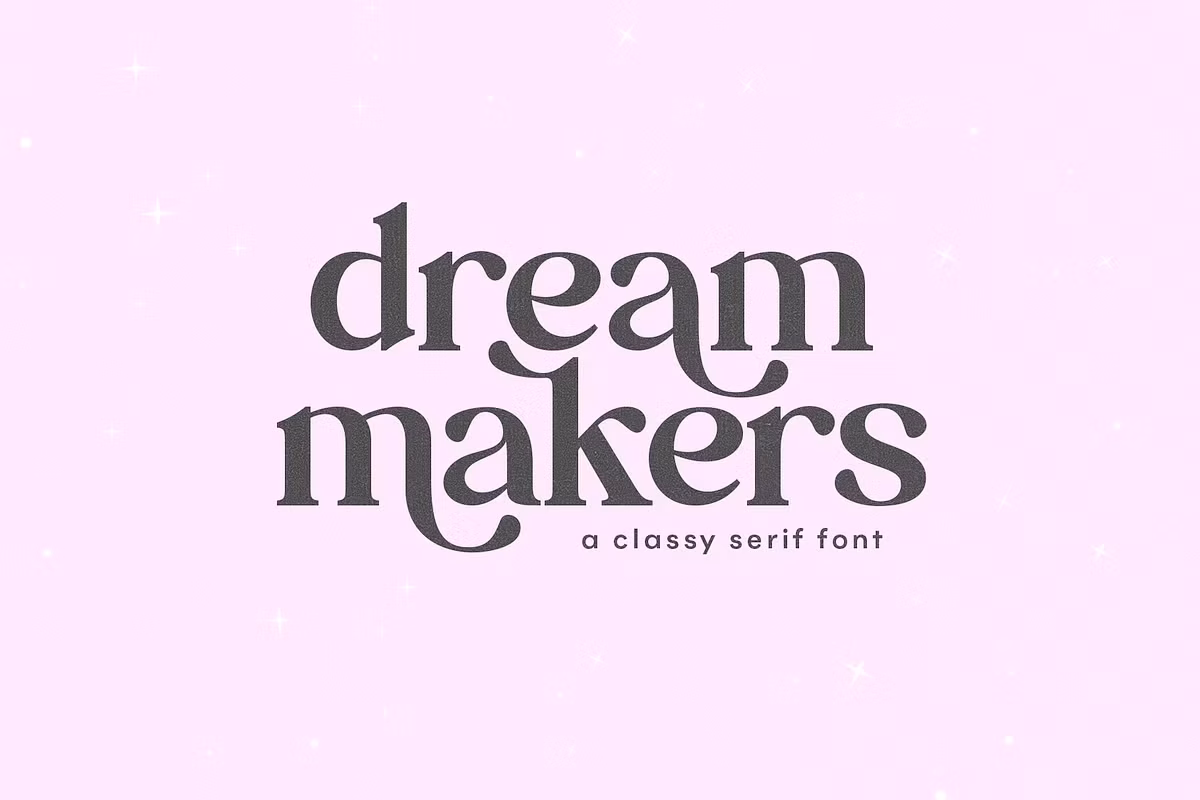
Dream Makers | Modern Serif Font Free Download is a sophisticated and stylish typeface that blends classic serif elegance with a modern, artistic twist. Perfect for branding, magazine layouts, logos, wedding invitations, and high-end packaging, this font exudes confidence and creativity. Its sharp serifs and graceful curves make it ideal for standout headlines and refined typographic compositions.
Whether you're designing for fashion, lifestyle, or luxury industries, Dream Makers delivers a timeless look with contemporary charm. It offers great readability while still making a bold visual impact.